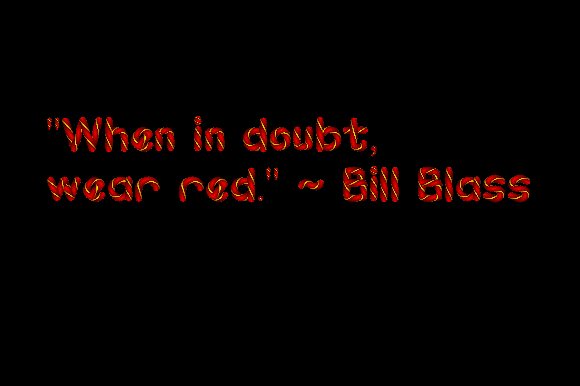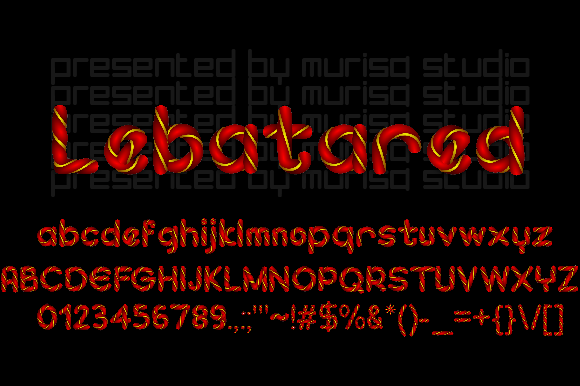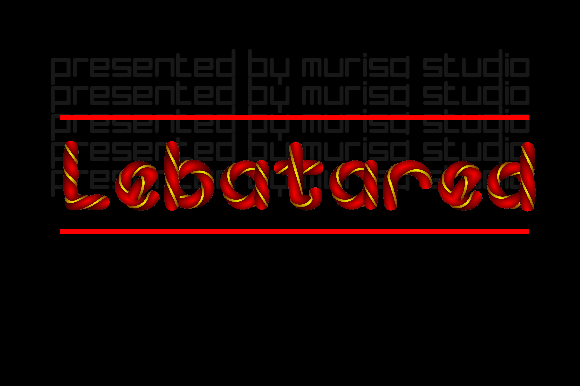
Introduction to Lebatared Font
Lebatared is a cool and fun color font.
It embodies playfulness and authenticity and is the perfect choice for any children’s activity or school project Note.
Key Features of Lebatared Font
Why Choose Lebatared Font?